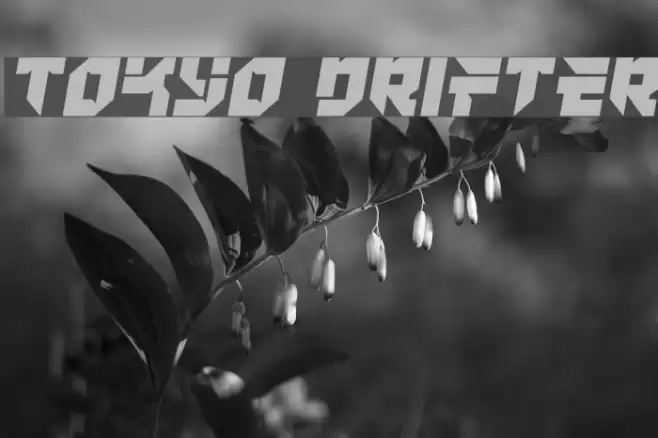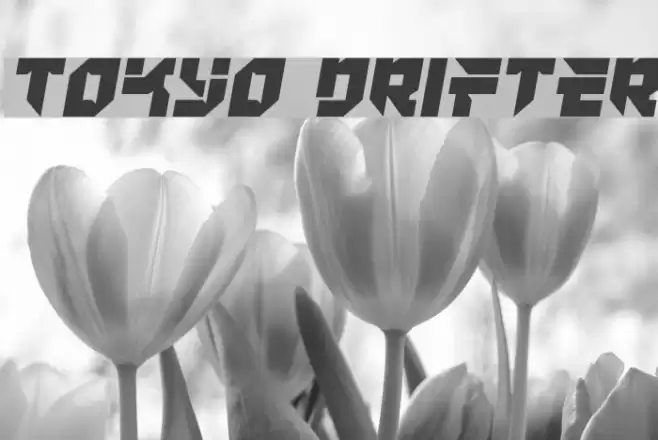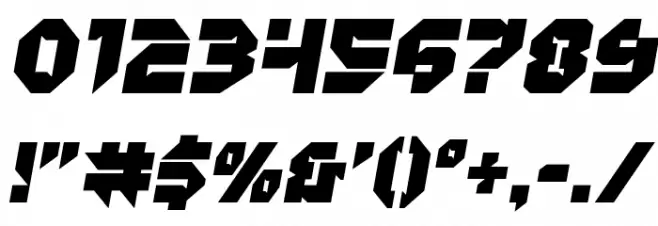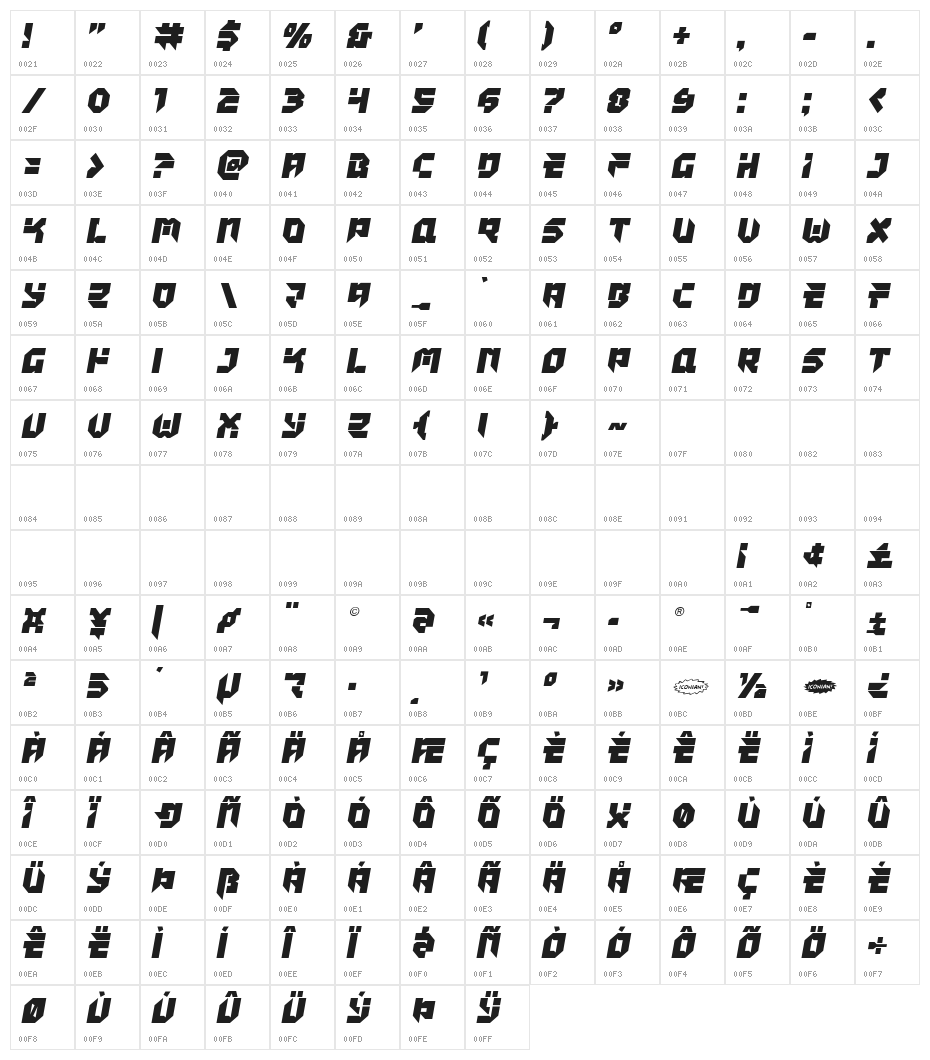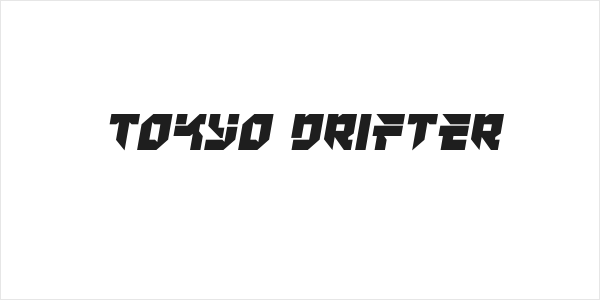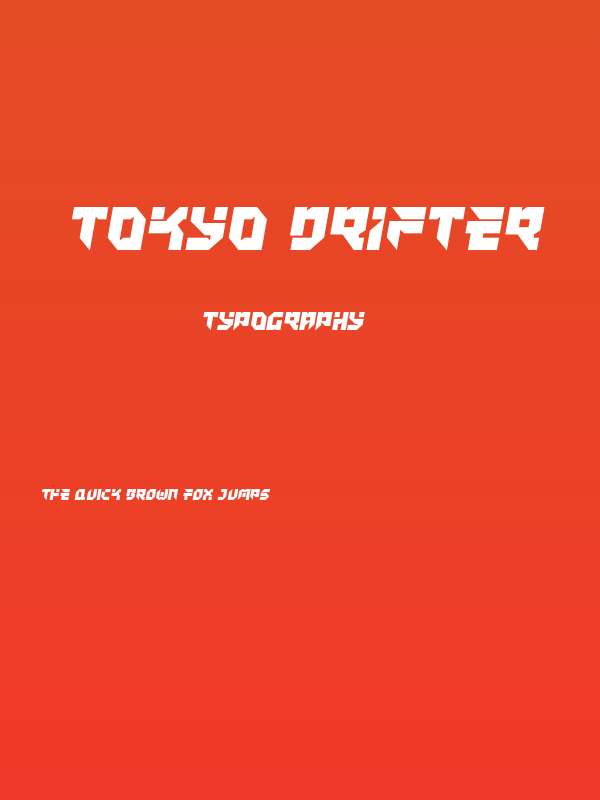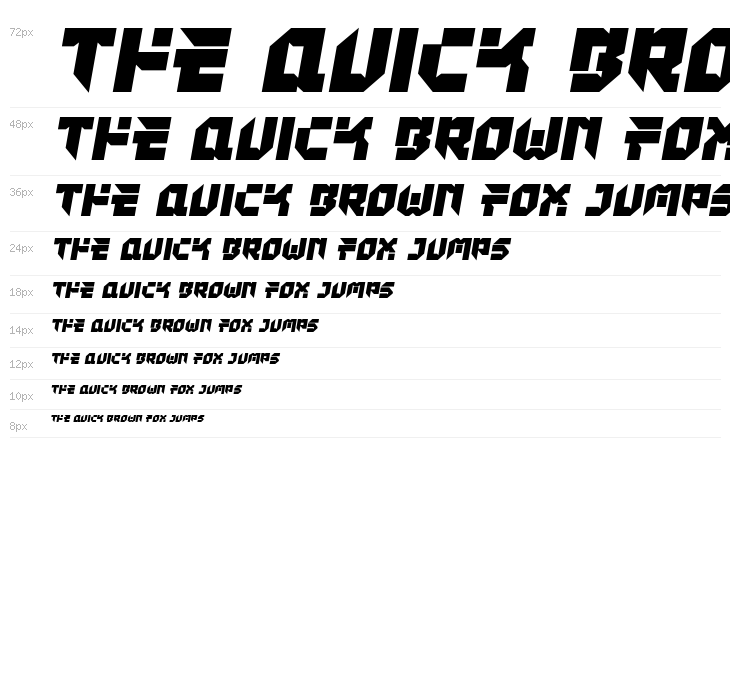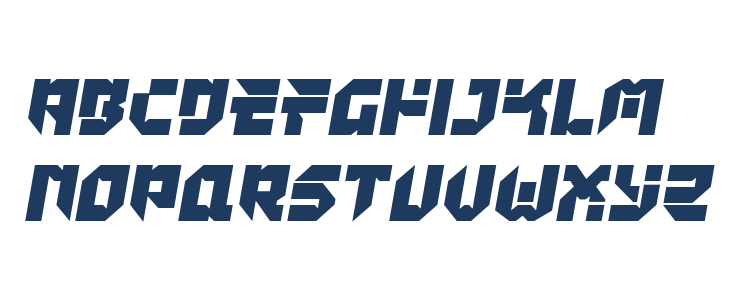
Tokyo Drifter Font
Tokyo Drifter Description
This font features a bold, angular design with a futuristic and geometric aesthetic. The characters are constructed with sharp, pointed edges and a blocky structure, giving it a dynamic and aggressive appearance. The uppercase and lowercase letters maintain a consistent style, with each character exhibiting a unique, stylized form that enhances its visual impact. The numbers and special characters follow the same design principles, ensuring uniformity across all glyphs. This font is ideal for projects that require a modern, edgy look, such as technology branding, video game titles, or sci-fi themed designs.
A bold, angular font with a futuristic and geometric style from Uncategorized fonts.
- Proposed Projects: Ideal for technology branding, video game titles, and sci-fi themed designs.